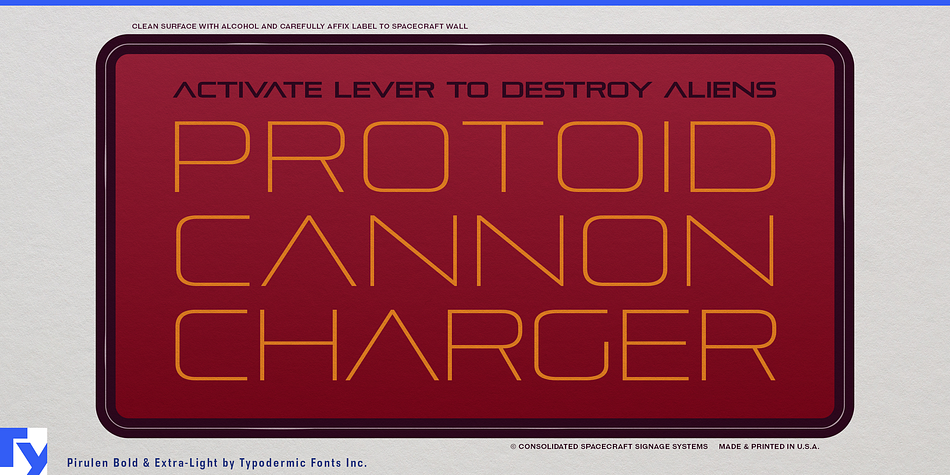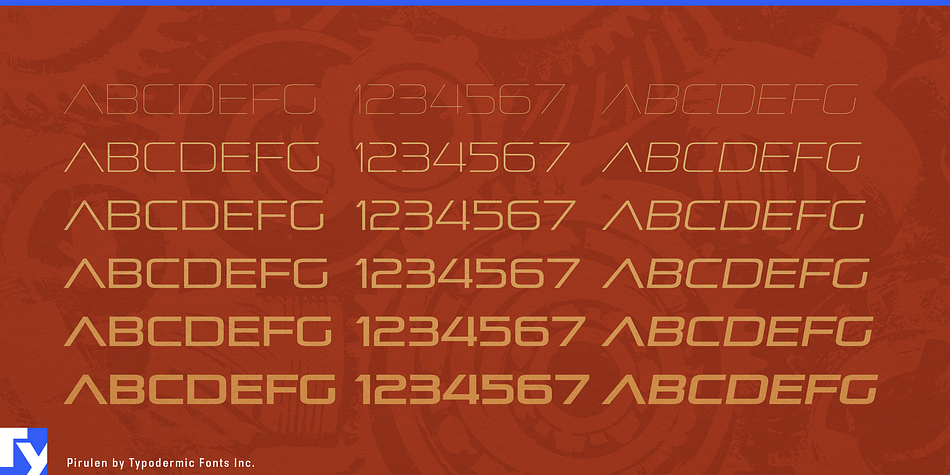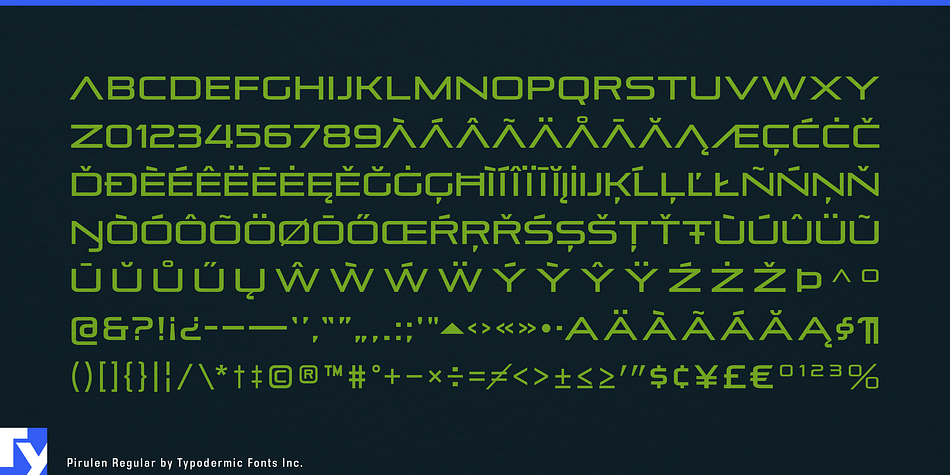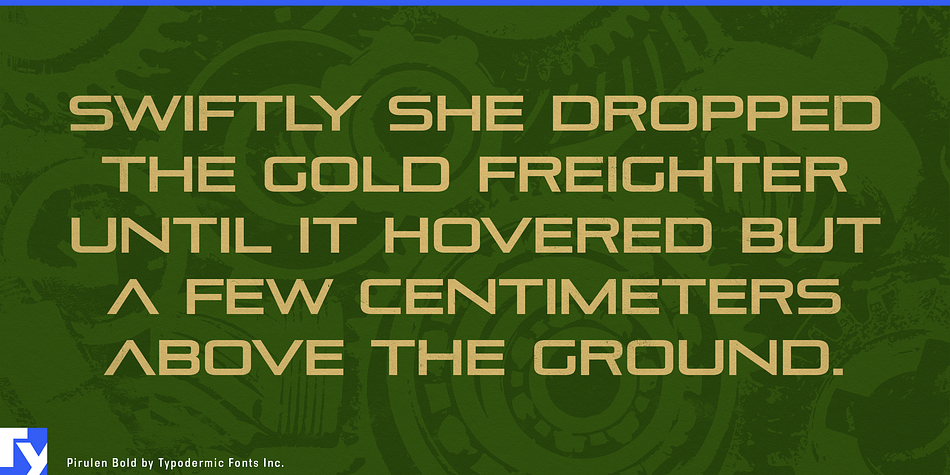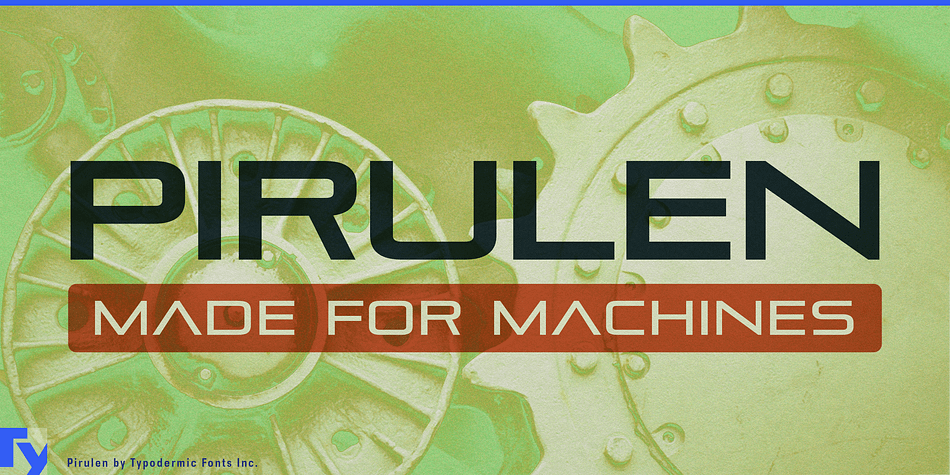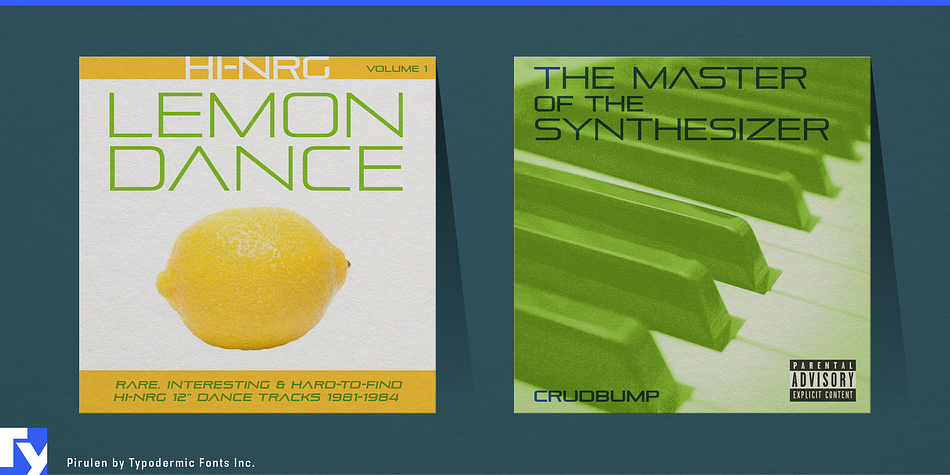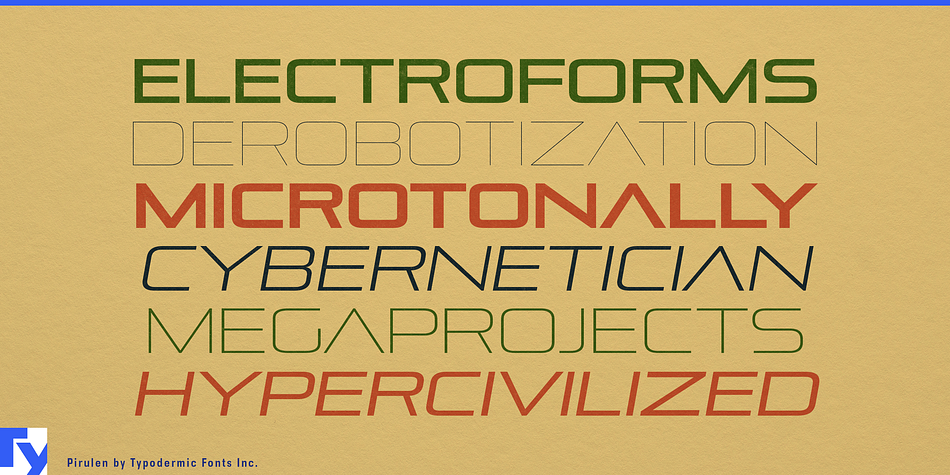
Pirulen is a display sans font family. This typeface has twelve styles and was published by Typodermic Fonts Inc.
Pirulen is a wide, hi-tech headliner. Although it bears some resemblance to 1930’s Bank Gothic, Pirulen does away with any trace of warmth or humanity; this typeface was made for machines. The lambda-style Λ gives Pirulen a stark look, but a barred A is included as well. Pirulen is available is six weights plus italics. The regular desktop license for Pirulen Regular is free.